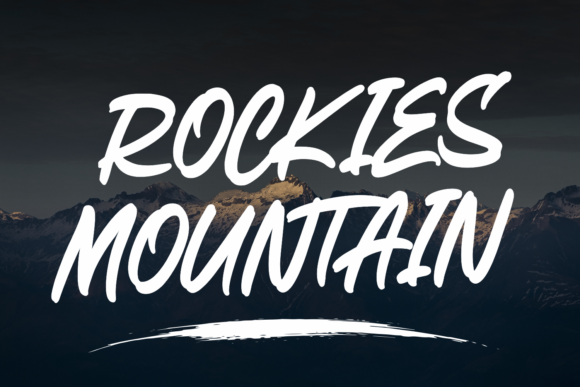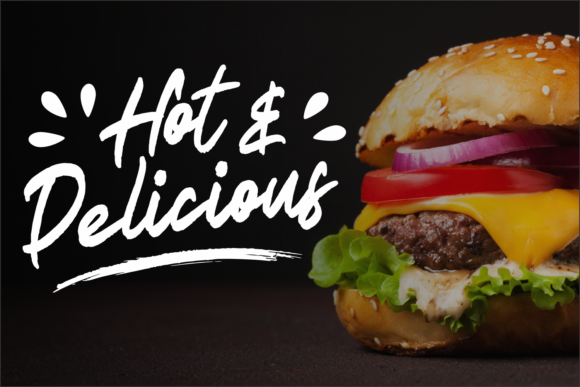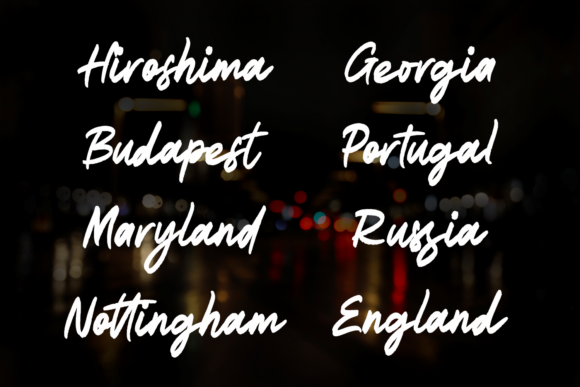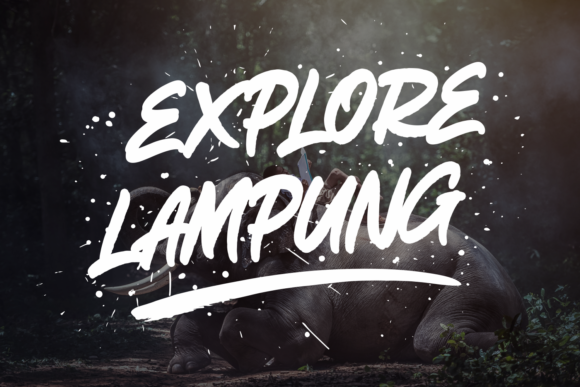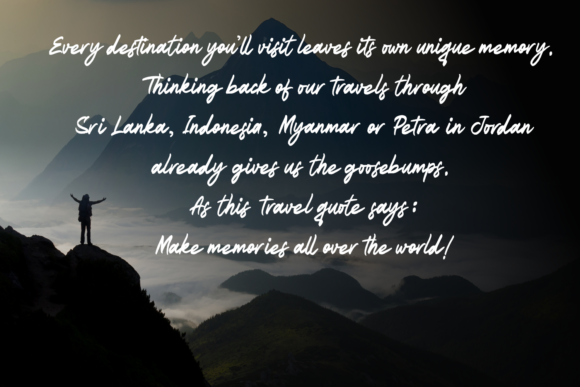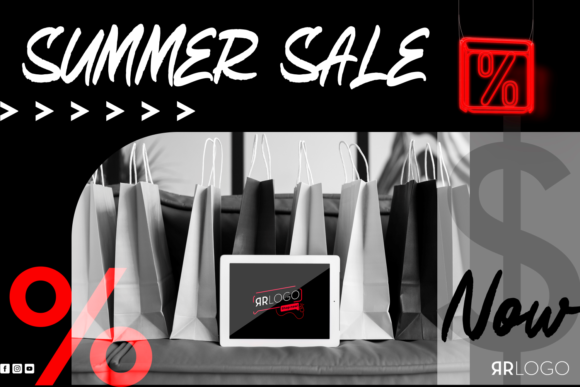
The Perfect Harmony of Style and Substance
Have you ever found yourself stuck in a creative rut, staring at a blank canvas or a blank document, waiting for that one spark that sets your imagination ablaze? For many designers, this feeling is all too familiar. But what if you had the perfect tool to help you break through that barrier and create something truly special?
Enter Breaksong Font, a stylish brushed display font that’s as urban as it is trendy. This versatile font is designed to fit a wide range of designs, from fashion and lifestyle to music and art. With its unique blend of style and substance, Breaksong Font is the perfect addition to any designer’s toolkit.
Whether you’re a seasoned pro or just starting out, Breaksong Font offers a level of creativity and flexibility that’s hard to find. Its value lies in its ability to help you express yourself in a way that’s truly authentic and eye-catching. So why settle for anything less when you can break the mold with Breaksong Font?
Breaksong Font Key Features
- Font Family: Breaksong Font is a unique, hand-drawn font with a distressed and vintage feel, ideal for creative and artistic projects.
- Unique Characteristics: Breaksong Font features a distinctive, hand-drawn look with imperfections and texture, adding a touch of authenticity to designs.
Breaksong Font Review
I recently had the chance to work with the Breaksong font, and here’s my honest take on it.
- The font’s unique, handwritten feel is perfect for creating a sense of warmth and personality in your designs.
- The Breaksong font is highly legible, even at smaller sizes, making it a great choice for body text or headlines.
- The font’s versatility means it can be used for a wide range of projects, from marketing materials to editorial content.
- The font’s irregularities can sometimes make it difficult to read, particularly for those with visual impairments.
- The font’s lack of bold or italic weights can limit its use in certain situations, such as when you need to emphasize text.
- The font’s size may not be suitable for very small or very large text, as it can become distorted or lose its legibility.
Overall, I think the Breaksong font is a great choice for designers looking to add some personality to their projects. While it has some limitations, its unique feel and high legibility make it a valuable addition to any design toolkit.
The Breaksong Font is ideal for creative and artistic projects, such as:
- Music-inspired designs
- Artistic quotes and typography
- Brand identities and logos
For best results, use the Breaksong Font in bold or italic styles to add emphasis and create a unique look.
Alternatives to Breaksong Font for Designers
Oswald
Oswald is a sans-serif font that is often used for headings and titles. It has a strong, modern feel and is well-suited for digital design. Oswald is a good alternative to Breaksong Font when you need a font that is clean and easy to read.
Comparison: Oswald has a more geometric feel than Breaksong Font, which has a more handwritten look. Oswald is also more versatile and can be used for a wider range of designs.
Great Vibes is a script font that is often used for creative and artistic designs. It has a fun, energetic feel and is well-suited for designs that need a touch of whimsy. Great Vibes is a good alternative to Breaksong Font when you need a font that is playful and eye-catching.